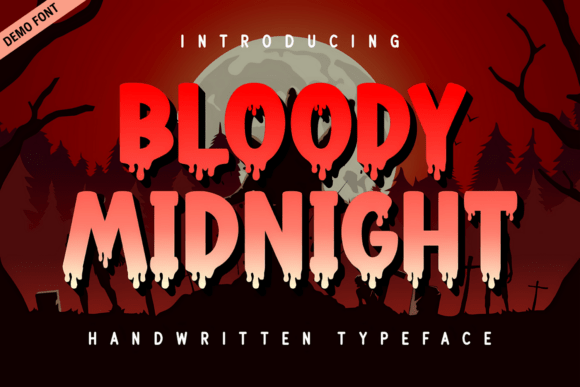
The Font that Screams for Attention: Bloody Midnight Demo Font by Kelik 7ntypes Font
Imagine you’re brainstorming ideas for a horror movie poster or a Halloween-themed social media campaign. You want something that will send chills down your audience’s spines and leave a lasting impression. That’s where the Bloody Midnight Demo Font by Kelik 7ntypes Font comes in – a chilling typeface that exudes horror and dramatic flair.
This bold, uppercase display font is perfect for evoking a spooky atmosphere, with its dripping blood-like letterforms and exaggerated terminals that resemble melting wax or splattered gore. The stark contrast between its bold structure and bleeding elements gives it a striking cinematic feel that’s sure to grab attention. For designers, the Bloody Midnight Demo Font by Kelik 7ntypes Font is a valuable tool for creating eerie and unforgettable visuals.
Bloody Midnight Demo Font by Kelik 7ntypes Font Key Features
- Font style: Display font with a bold and distressed look.
- Unique characteristics: The font features a distressed, hand-drawn look with a bold and edgy feel, making it suitable for horror, thriller, or action-themed designs.
Bloody Midnight Demo Font by Kelik 7ntypes Font Review
Overall, I think this font has some interesting elements, but it also has its limitations. Here’s my honest review.
✨ The font has a unique and intriguing aesthetic, which can be perfect for creating a spooky or mysterious atmosphere in designs.
✨ The font’s bold and heavy lines add a sense of drama and tension, making it suitable for headings and titles.
Limitedities
⚠️ The font may not be the best choice for long blocks of text, as the heavy lines and bold style can make it difficult to read.
⚠️ The font’s unique aesthetic may not appeal to everyone, and it may not be suitable for designs where a more neutral or subtle font is needed.
⚠️ The font’s demo version is limited, and it may not include all the characters and styles that are available in the full version.
I think the Bloody Midnight Demo Font by Kelik 7ntypes Font is a good choice for designers who want to add a touch of drama and mystery to their designs. However, it’s not a good fit for every project, and designers should carefully consider whether it’s the right choice for their needs.
Overall, I would give this font 3.5 out of 5 stars. It’s a unique and intriguing font, but it has some limitations that may make it less suitable for certain designs.
Use the Bloody Midnight Demo Font to add a touch of edginess to your designs. Experiment with different font sizes, colors, and styles to create a unique look.
Pair the font with other bold and gritty elements to create a cohesive design.